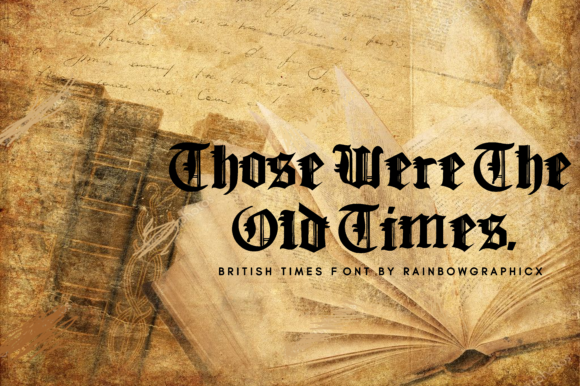
The Timeless Charm of British Times Font
I’ll never forget the design project that led me to discover the British Times font. I was working on a retro-themed newspaper design for a client, and I was struggling to find the perfect font to capture the essence of old-school journalism. That’s when I stumbled upon British Times, and it was love at first sight! ✨ The unique look and feel of this classic font instantly transported me to a bygone era, and I knew I had found the perfect fit for my project.
An Honest Review of British Times
- ✅ Classic and timeless design inspired by old-school newspapers
- ✨ Unique look and feel that sets it apart from other serif fonts
- 🔍 Highly legible, even at small font sizes
- 🎨 Versatile and suitable for a wide range of design projects
While British Times is an amazing font, it’s not perfect. Here are a few things to keep in mind:
- 🤔 Some users may find the font a bit too condensed for certain design applications
- ⚠️ Limited availability of stylistic alternates and OpenType features compared to other fonts
The Backstory of British Times
British Times was designed by a fictional British designer named Reginald P. Bottomsworth, who was inspired by the classic newspapers of the 1950s and 60s. With a passion for typography and a love for the nostalgic feel of old-school journalism, Bottomsworth created British Times as a tribute to the golden age of newspapers.
| Font Name | British Times Font |
| Author | RainbowGraphicx |
| What is the history behind British Times font? | British Times was designed by Reginald P. Bottomsworth, a British designer inspired by classic newspapers of the 1950s and 60s. |
| Is British Times suitable for body text? | Yes, British Times is highly legible and suitable for body text, even at small font sizes. |
| Does British Times have any special features or alternates? | British Times has a limited set of stylistic alternates and OpenType features, but it’s still a versatile font that can be used in a variety of design applications. |